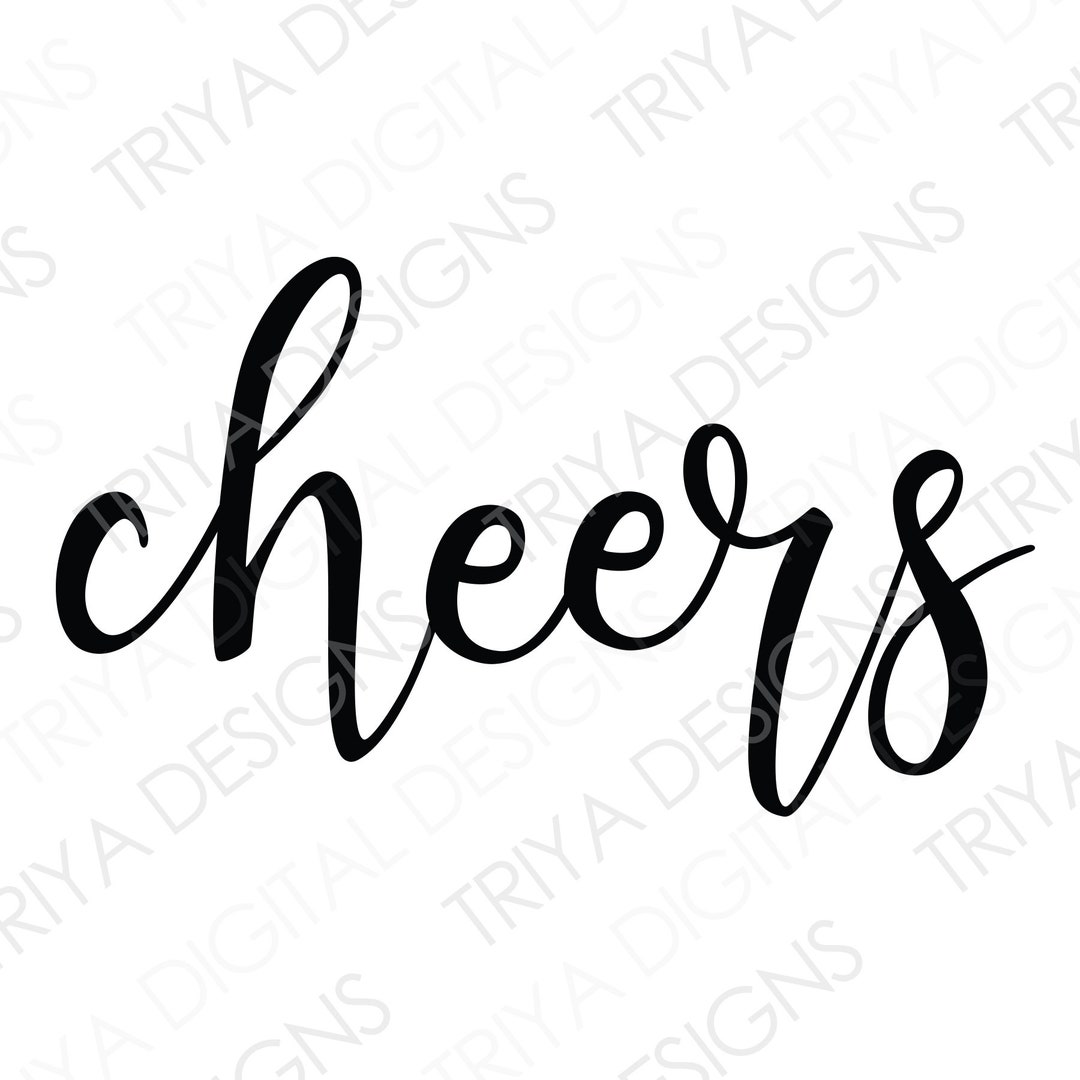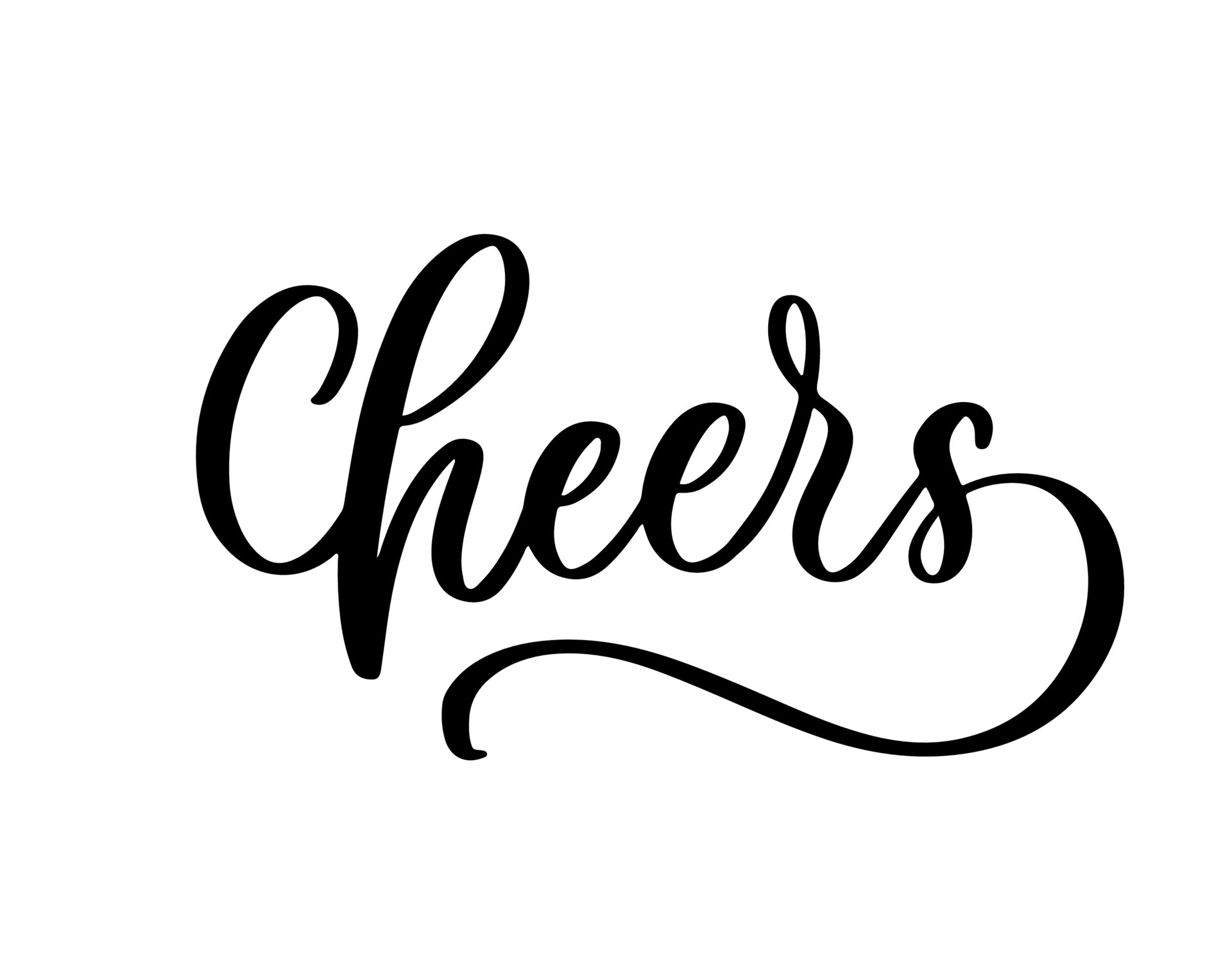
What Is The Cheers Font . You can download cheers font from font sherlock. This modern typeface features many soft lines along with the stylish. The retro lettering of “cheers” that appeared in the title card of the show was probably. What font does cheers use for its logo? Almost anyone who grew up with a tv in the 1980s. Cheers is known to many viewers in the us as a very popular tv show. A brief introduction to cheers font. View information about the font used for the cheers logo and links to download or buy the font. Cheers font is a fun and festive script font that can add some sparkle and excitement to your designs. It is perfect for projects that need a cheerful and celebratory style. The site will redirect you to the front page where you will find the character. Designers have chosen a cheers logo with bold lettering for the american tv series, each letter of which is lined at the bottom with numerous small strokes,. In the us, at least, the cheers logo and opening titles are virtually universal. The show is about a group of people who come and meet at the cheers bar, drinking, relaxing, chatting.
In the us, at least, the cheers logo and opening titles are virtually universal. The show is about a group of people who come and meet at the cheers bar, drinking, relaxing, chatting. Cheers font is a fun and festive script font that can add some sparkle and excitement to your designs. Almost anyone who grew up with a tv in the 1980s. The site will redirect you to the front page where you will find the character. View information about the font used for the cheers logo and links to download or buy the font. The retro lettering of “cheers” that appeared in the title card of the show was probably. This modern typeface features many soft lines along with the stylish. What font does cheers use for its logo? Designers have chosen a cheers logo with bold lettering for the american tv series, each letter of which is lined at the bottom with numerous small strokes,.
What Is The Cheers Font A brief introduction to cheers font. Almost anyone who grew up with a tv in the 1980s. What font does cheers use for its logo? View information about the font used for the cheers logo and links to download or buy the font. Cheers is known to many viewers in the us as a very popular tv show. The show is about a group of people who come and meet at the cheers bar, drinking, relaxing, chatting. You can download cheers font from font sherlock. In the us, at least, the cheers logo and opening titles are virtually universal. The retro lettering of “cheers” that appeared in the title card of the show was probably. The site will redirect you to the front page where you will find the character. Designers have chosen a cheers logo with bold lettering for the american tv series, each letter of which is lined at the bottom with numerous small strokes,. Cheers font is a fun and festive script font that can add some sparkle and excitement to your designs. A brief introduction to cheers font. This modern typeface features many soft lines along with the stylish. It is perfect for projects that need a cheerful and celebratory style.
Cheer Script Embroidery Font 1" 2" 12 01 2017 Designs by Little Bee What Is The Cheers Font View information about the font used for the cheers logo and links to download or buy the font. Cheers is known to many viewers in the us as a very popular tv show. The retro lettering of “cheers” that appeared in the title card of the show was probably. What font does cheers use for its logo? Almost anyone who. What Is The Cheers Font.
Cheers by Ben Didier on Dribbble What Is The Cheers Font In the us, at least, the cheers logo and opening titles are virtually universal. Almost anyone who grew up with a tv in the 1980s. The retro lettering of “cheers” that appeared in the title card of the show was probably. Cheers is known to many viewers in the us as a very popular tv show. It is perfect for. What Is The Cheers Font.
Cheer Script Embroidery Font 1" 2" 12 01 2017 Designs by Little Bee What Is The Cheers Font A brief introduction to cheers font. Cheers font is a fun and festive script font that can add some sparkle and excitement to your designs. It is perfect for projects that need a cheerful and celebratory style. What font does cheers use for its logo? Almost anyone who grew up with a tv in the 1980s. View information about the. What Is The Cheers Font.
Cheers! lettering Hand lettering logo, Lettering design, Typographic logo design What Is The Cheers Font Designers have chosen a cheers logo with bold lettering for the american tv series, each letter of which is lined at the bottom with numerous small strokes,. Almost anyone who grew up with a tv in the 1980s. In the us, at least, the cheers logo and opening titles are virtually universal. The show is about a group of people. What Is The Cheers Font.
The Real Cheers Font is as Cool as the You Remember HipFonts What Is The Cheers Font View information about the font used for the cheers logo and links to download or buy the font. Cheers font is a fun and festive script font that can add some sparkle and excitement to your designs. Almost anyone who grew up with a tv in the 1980s. The retro lettering of “cheers” that appeared in the title card of. What Is The Cheers Font.
Bon Cheers Font Dafont Free Signature fonts, Dafont, Lettering What Is The Cheers Font This modern typeface features many soft lines along with the stylish. What font does cheers use for its logo? The retro lettering of “cheers” that appeared in the title card of the show was probably. A brief introduction to cheers font. You can download cheers font from font sherlock. The show is about a group of people who come and. What Is The Cheers Font.
Cheers Font Dafont Free What Is The Cheers Font What font does cheers use for its logo? The show is about a group of people who come and meet at the cheers bar, drinking, relaxing, chatting. It is perfect for projects that need a cheerful and celebratory style. Cheers is known to many viewers in the us as a very popular tv show. View information about the font used. What Is The Cheers Font.
Cheers Font & Graphics Pack Free Fonts What Is The Cheers Font Almost anyone who grew up with a tv in the 1980s. The retro lettering of “cheers” that appeared in the title card of the show was probably. You can download cheers font from font sherlock. This modern typeface features many soft lines along with the stylish. In the us, at least, the cheers logo and opening titles are virtually universal.. What Is The Cheers Font.
Cheers Font Free Download » DaFontsPro What Is The Cheers Font A brief introduction to cheers font. Almost anyone who grew up with a tv in the 1980s. View information about the font used for the cheers logo and links to download or buy the font. Designers have chosen a cheers logo with bold lettering for the american tv series, each letter of which is lined at the bottom with numerous. What Is The Cheers Font.